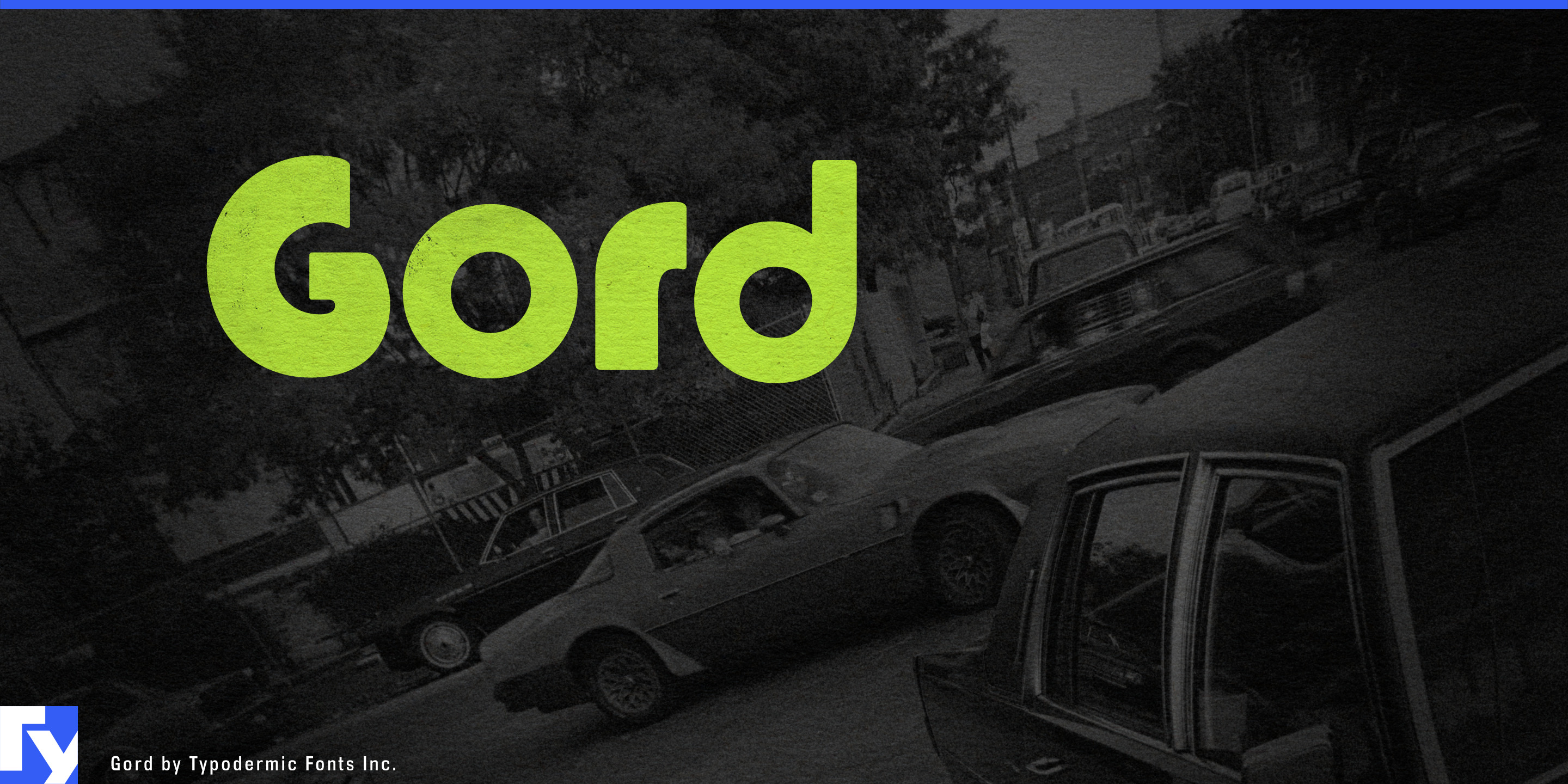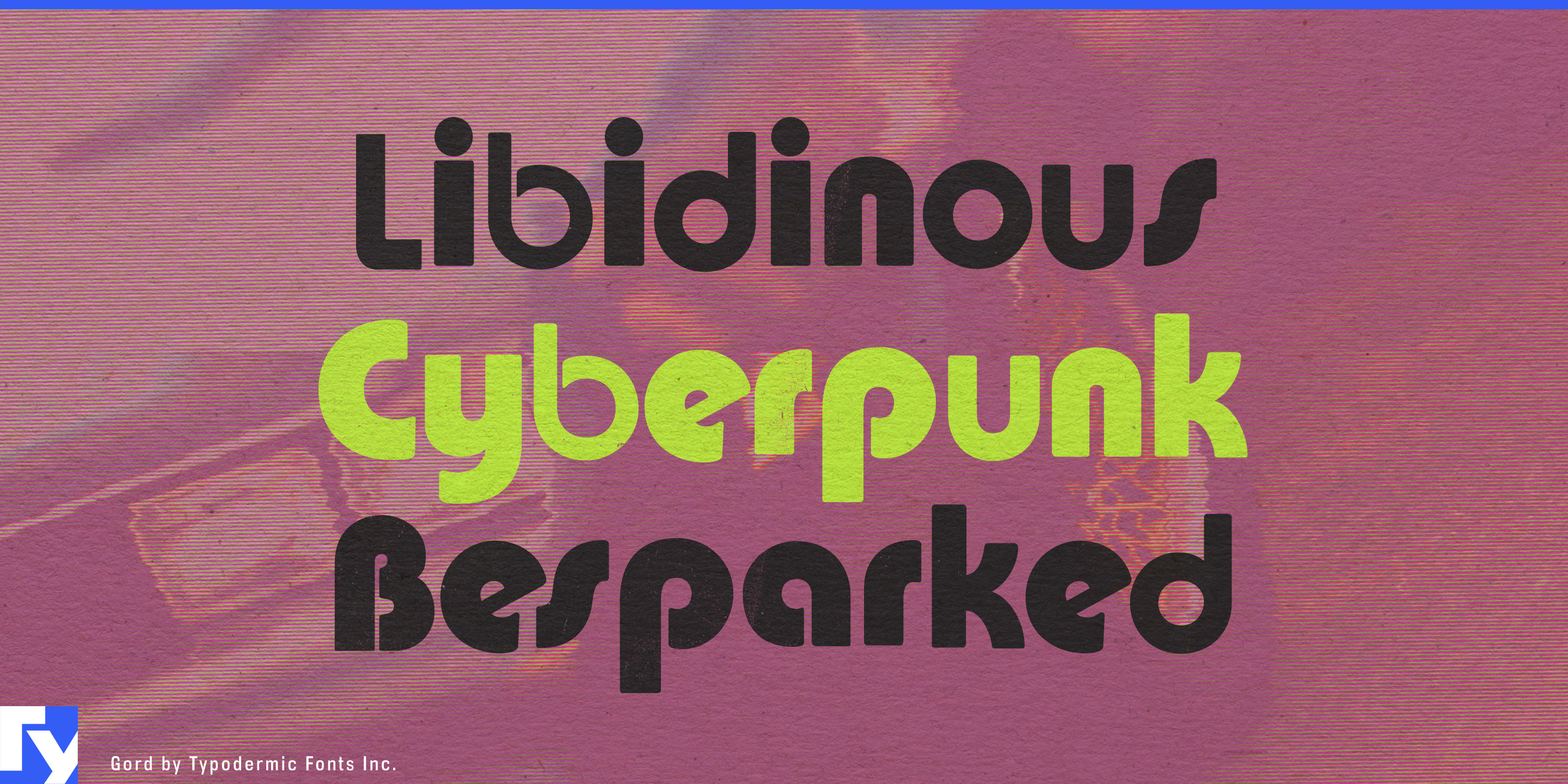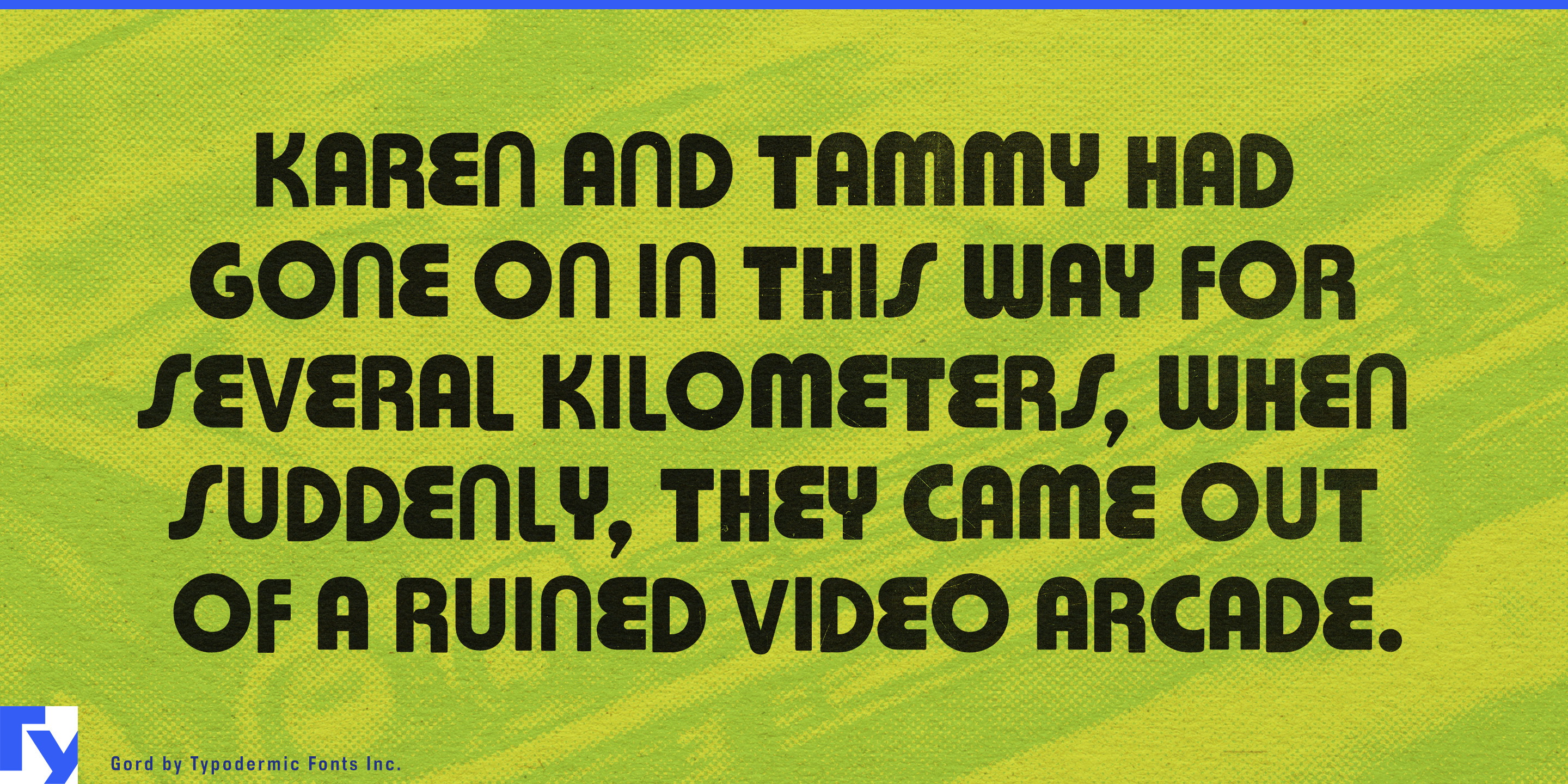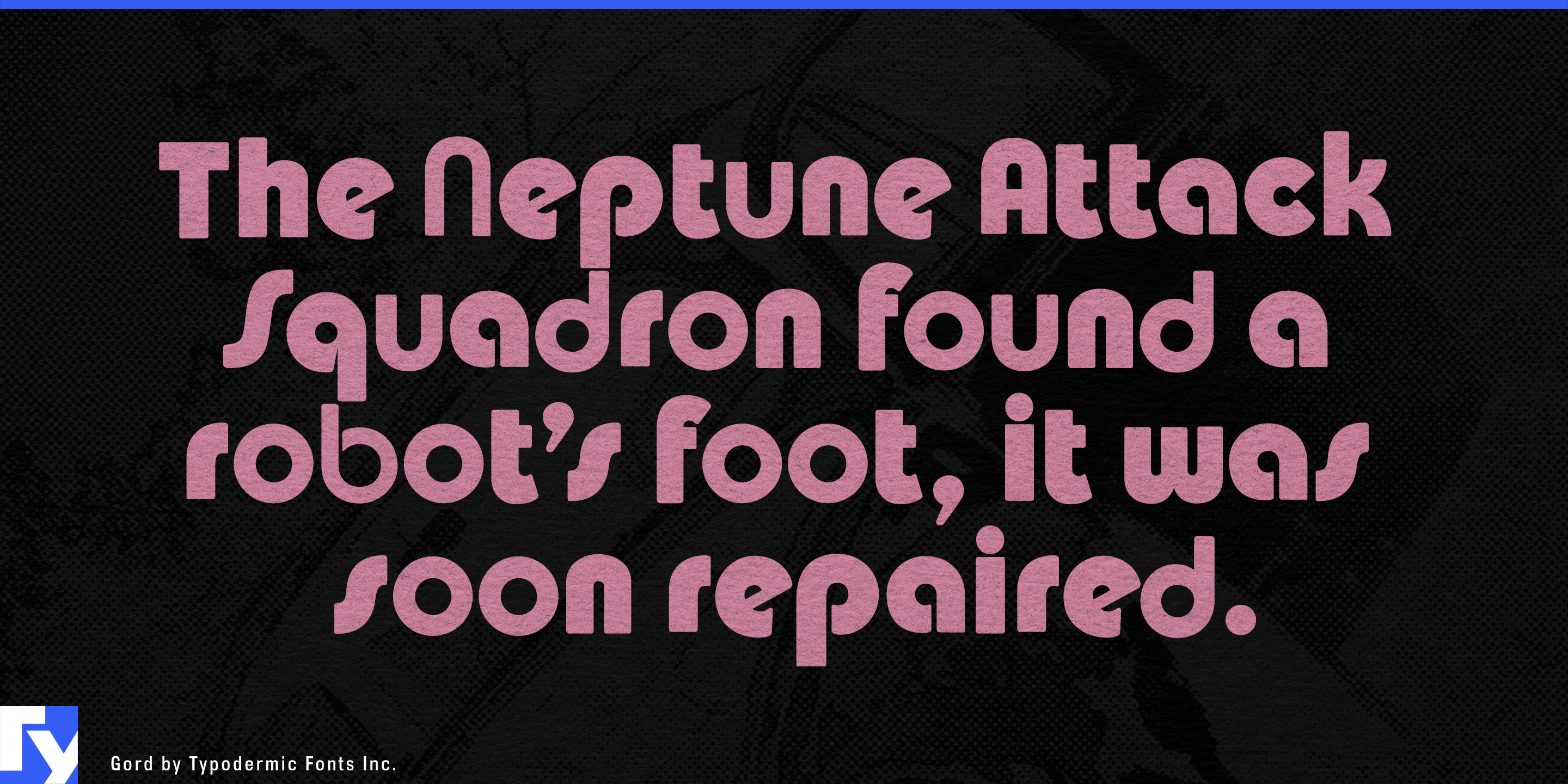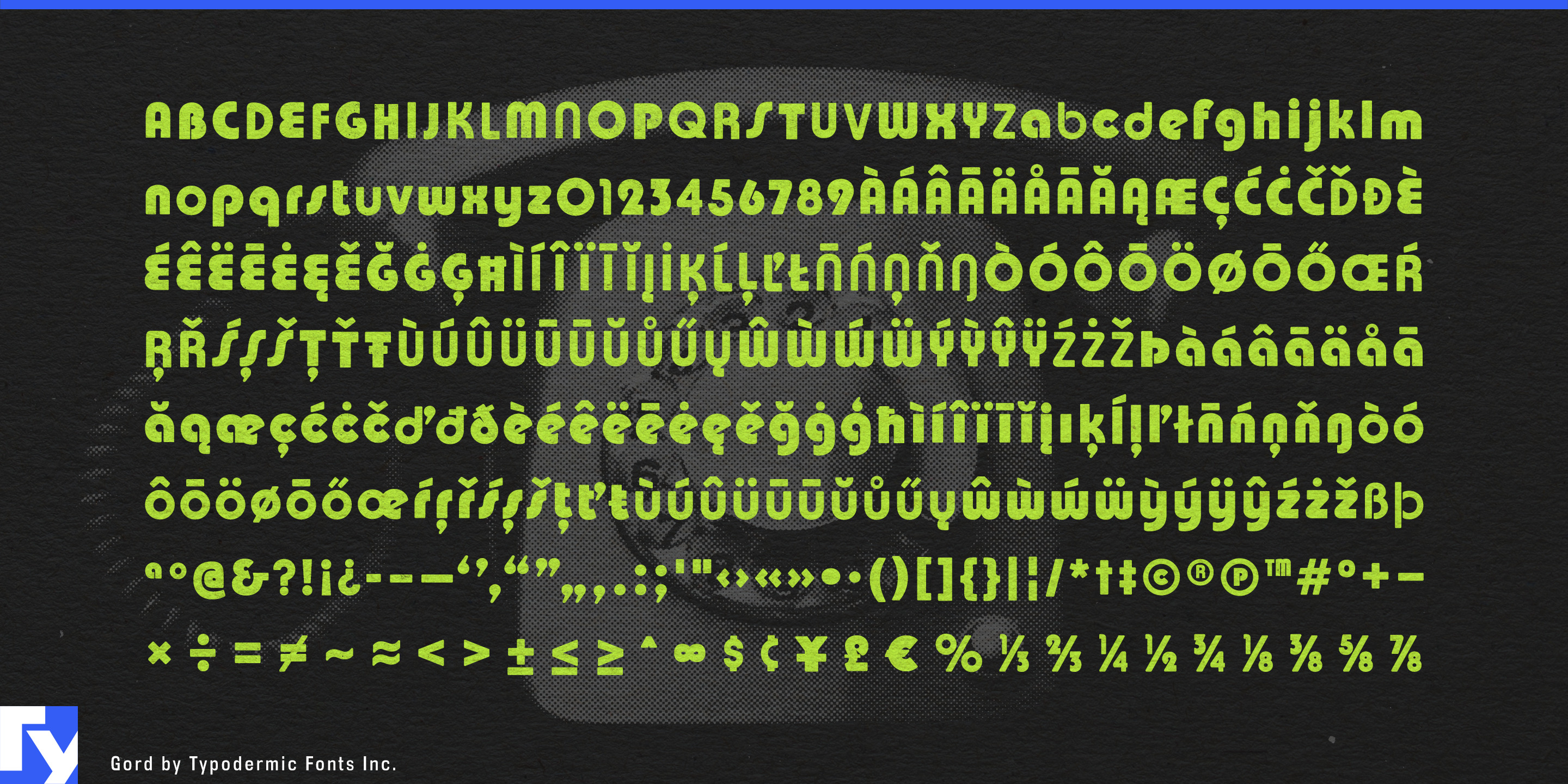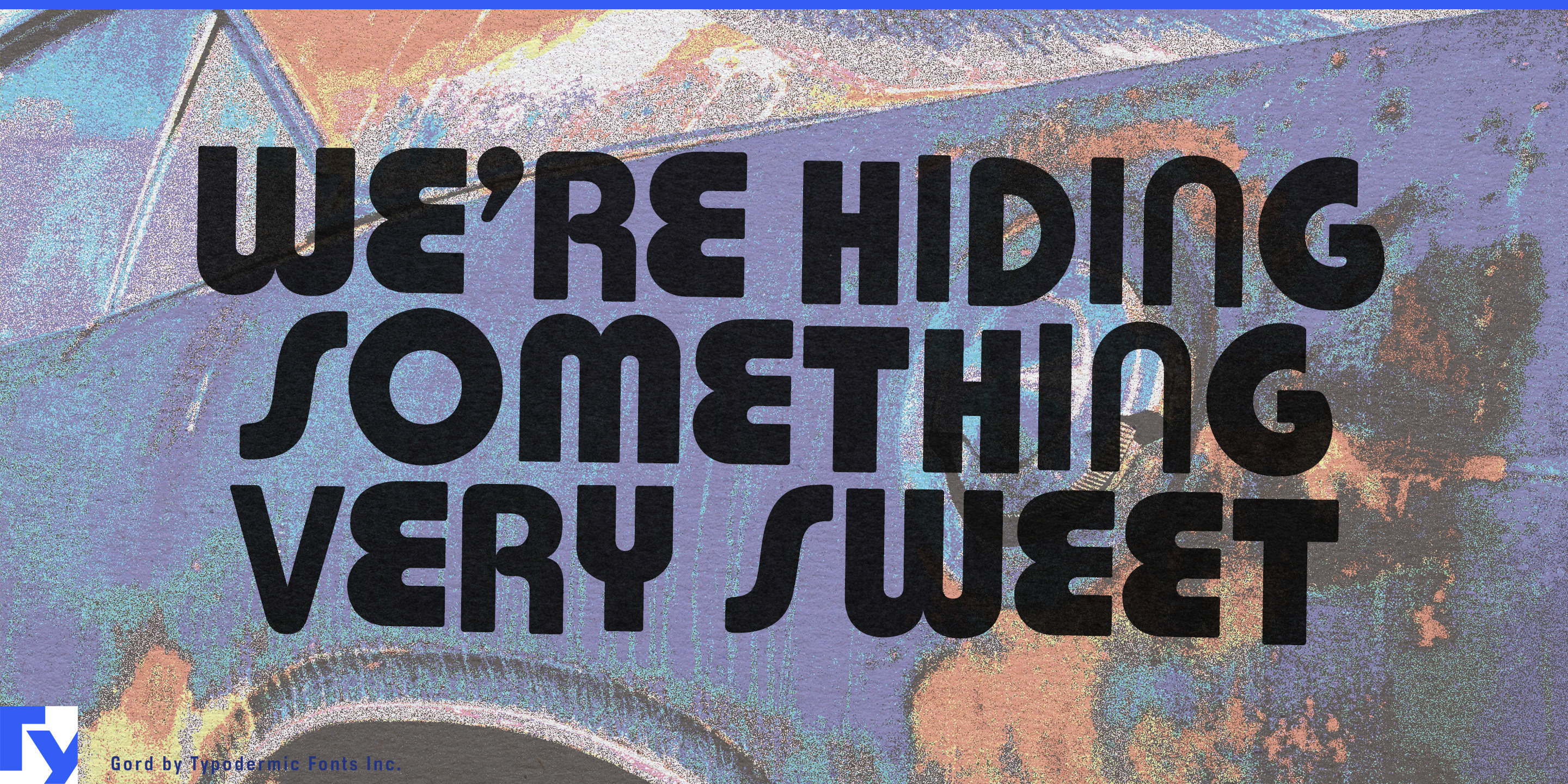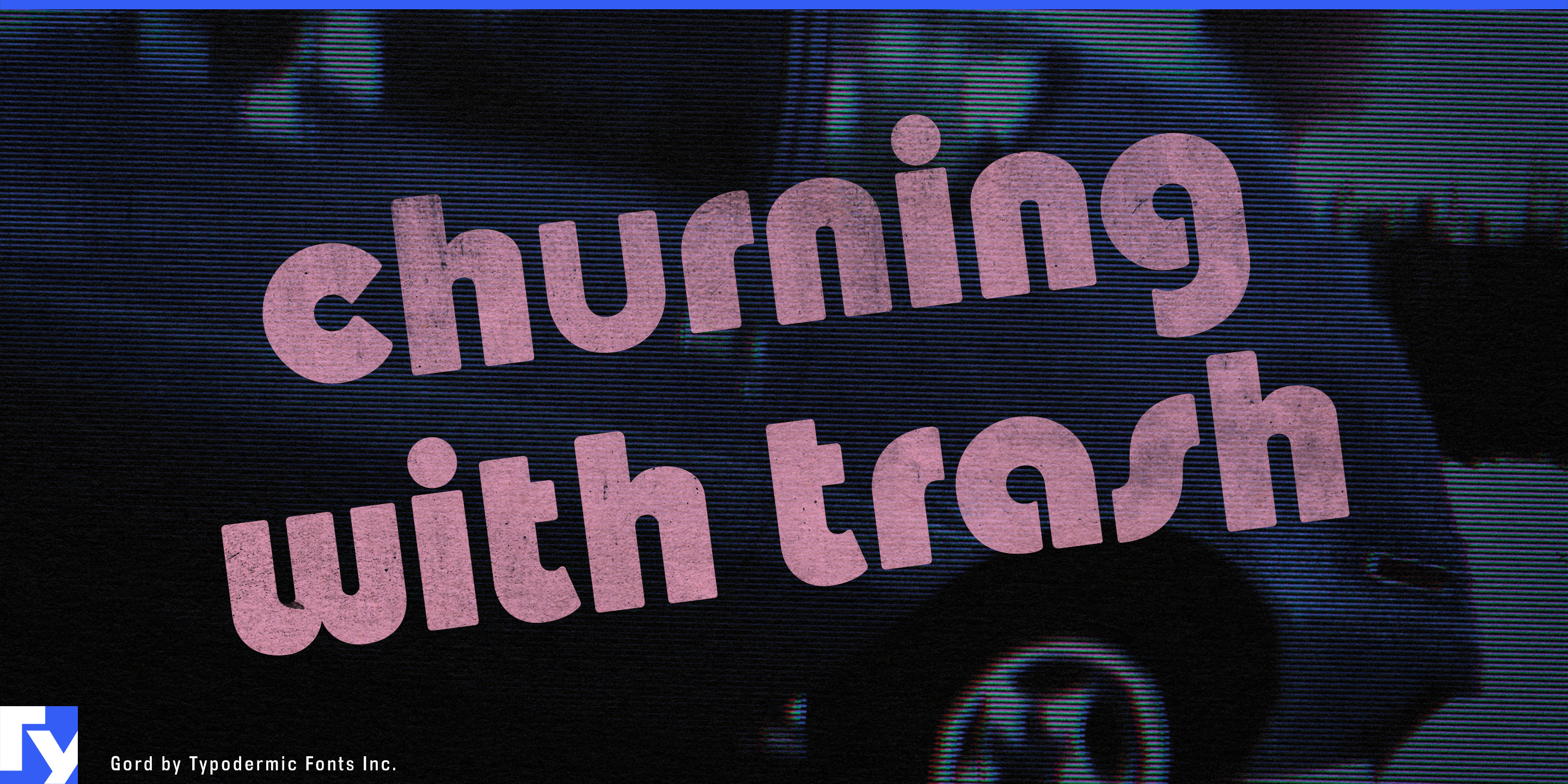
Gord
Professional design sometimes has to look professionally wrong. A fictional discount store, bargain food brand, sleazy motel, clearance campaign, or deliberately low-rent package can lose the joke the moment its typography becomes too tasteful. But convincing bad design is surprisingly difficult to art-direct. Mixing unrelated old fonts, nudging letters off the baseline, softening the edges, and introducing just enough incompetence can easily produce random chaos instead of a believable identity. Gord packages those bad decisions into a repeatable system.
Its forms were deliberately assembled from incompatible 1970s typographic ideas, drawing from sources including Pump, Churchward, and Bauhaus rather than trying to reproduce one coherent historical style. The letters were softened and vertically misaligned just enough to suggest neglect, poor production, or dubious judgment without turning into cheerful bouncy lettering. Gord is not badly made; it is carefully designed to look badly chosen.
That makes it particularly useful for fictional brands and environments. Film, television, animation, and games routinely need businesses that are supposed to have survived decades without a competent redesign: regional motels, discount supermarkets, bowling alleys, furniture warehouses, bargain restaurants, local cable stations, tourist traps, and questionable consumer products. Gord can establish that history immediately across storefronts, fake advertisements, prop packaging, title cards, vehicle graphics, and environmental lettering.
The effect is less about accurate 1970s reconstruction than an invented memory of commercial design gone wrong. A beautifully researched period typeface can make a fictional supermarket look too considered. Gord supplies the other layer of visual history: the sign that was probably a bad idea when it was installed and somehow remained there for forty years.
Consumer packaging can use the same strategy deliberately. Snack foods, frozen meals, confectionery, sauces, canned drinks, and limited-edition collaborations sometimes benefit from looking cheaper, older, or less sophisticated than the production actually is. Gord can take over the brand name, flavour name, or oversized promotional phrase while clean supporting typography handles ingredients and regulatory information. The package can look like a forgotten private-label product without actually behaving like one.
Large retail campaigns offer another place where deliberate bad taste can become a controlled visual device. Warehouse sales, outlet events, clearance promotions, discount chains, and secondhand marketplaces may need graphics that communicate cheapness before the customer has read a single price. Gord can spread that language across window posters, point-of-sale displays, campaign headlines, digital advertising, and temporary environmental graphics while remaining consistent enough for an agency to manage across a full rollout.
The same deliberate ugliness can work in fashion and merchandise when polished nostalgia feels too safe. A capsule collection, streetwear collaboration, licensed product range, or campaign built around bad taste can use Gord as an interruption inside an otherwise carefully produced identity. The contrast matters: the typography looks careless because everything surrounding it is not.
Gord works best when the design needs evidence of questionable judgment. Its mismatched forms, loose vertical rhythm, and softened outlines can make a brand or fictional environment feel as though its visual identity accumulated by accident rather than emerging from a contemporary design process.
Sometimes the professional solution is typography that looks like nobody hired a professional.